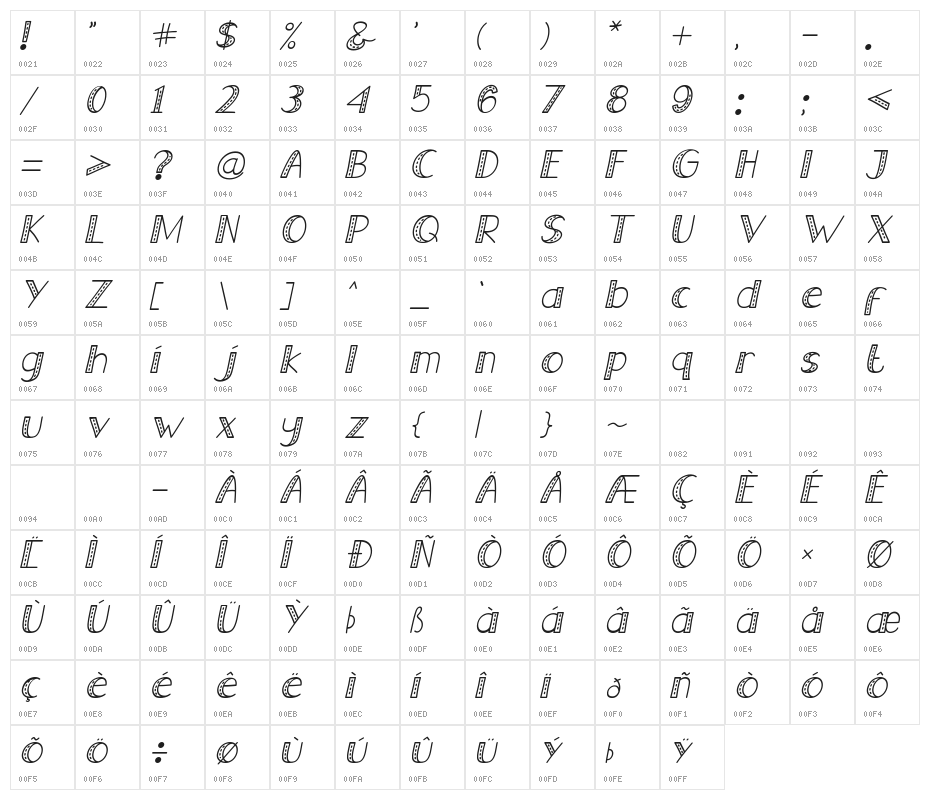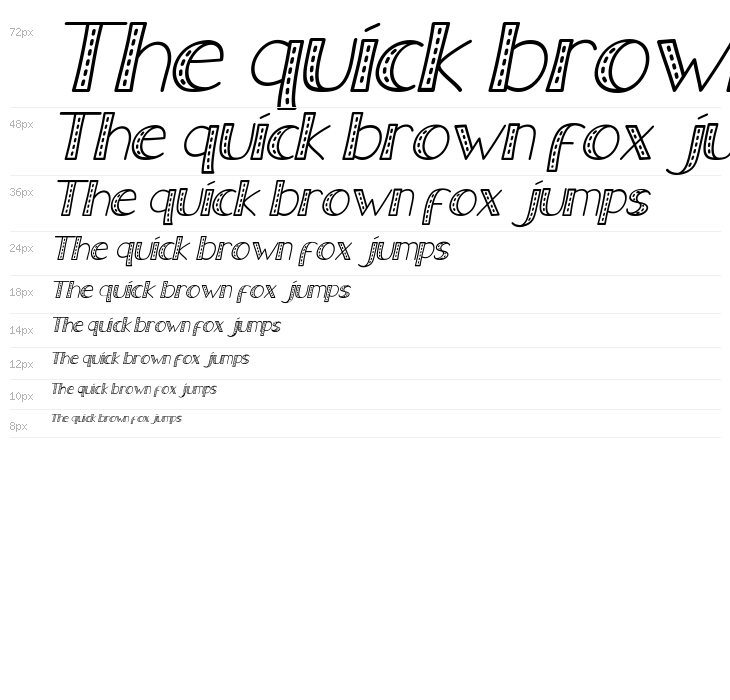
Old Jeans Italic Font
Old Jeans Italic Description
This font features a playful and decorative style with a unique dotted pattern within each character, giving it a lively and dynamic appearance. The letters are italicized, adding a sense of motion and elegance. The uppercase and lowercase letters maintain a consistent design, with rounded edges and a slight slant. Numbers and special characters are included, each following the same decorative theme. The overall look is reminiscent of retro or vintage aesthetics, making it suitable for creative and eye-catching designs.
| Overall Style | Vintage, Decorative |
| Proposed Projects | Ideal for posters, invitations, branding, and any project requiring a fun and vintage touch. |